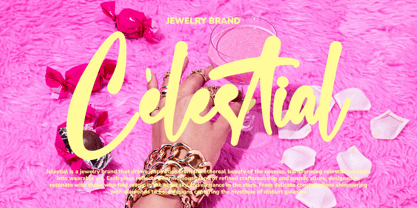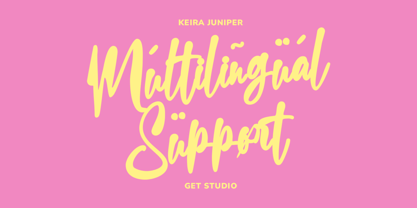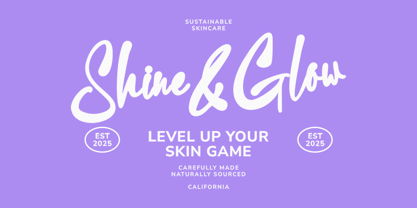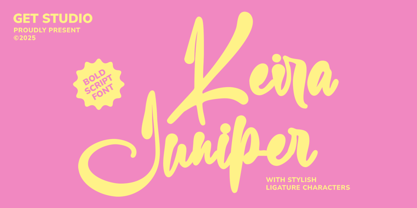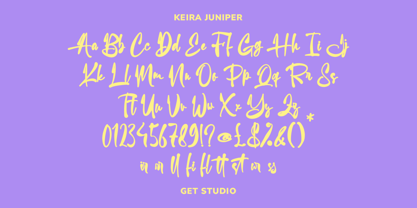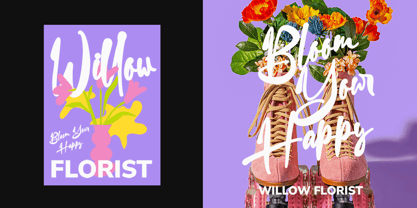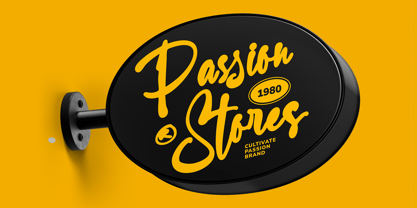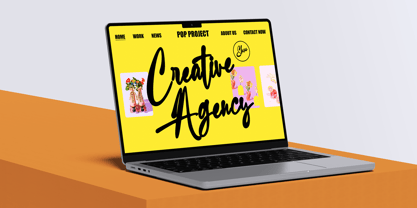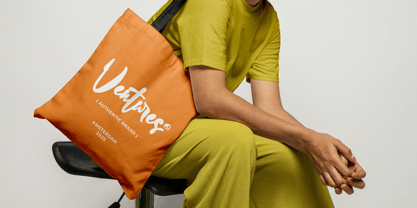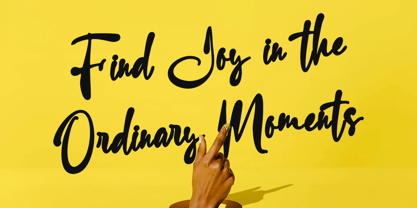
Keira Juniper
by Get Studio
The Keira Juniper Font Family was designed by Hermansyah and published by Get Studio. Keira Juniper contains 1 styles. More about this family
Keira Juniper is a bold handwritten script font with a playful, confident vibe. Crafted with smooth curves and expressive ligatures, this font brings an energetic charm to any project. Whether you're designing branding, social media quotes, packaging, or invitations, Keira Juniper adds a fun, modern twist with its eye-catching flow and stylish flair.
Its natural handwritten feel makes it perfect for creative designs that need a personal touch.
Designers: Hermansyah
Foundry: Get Studio